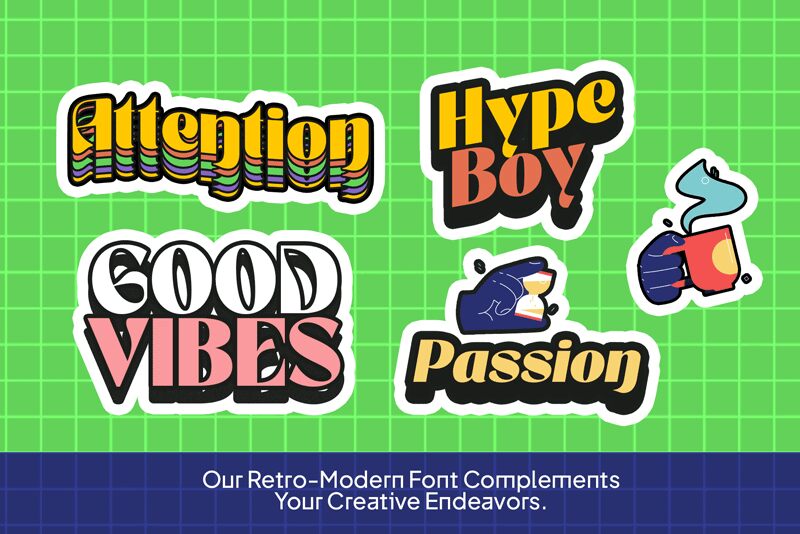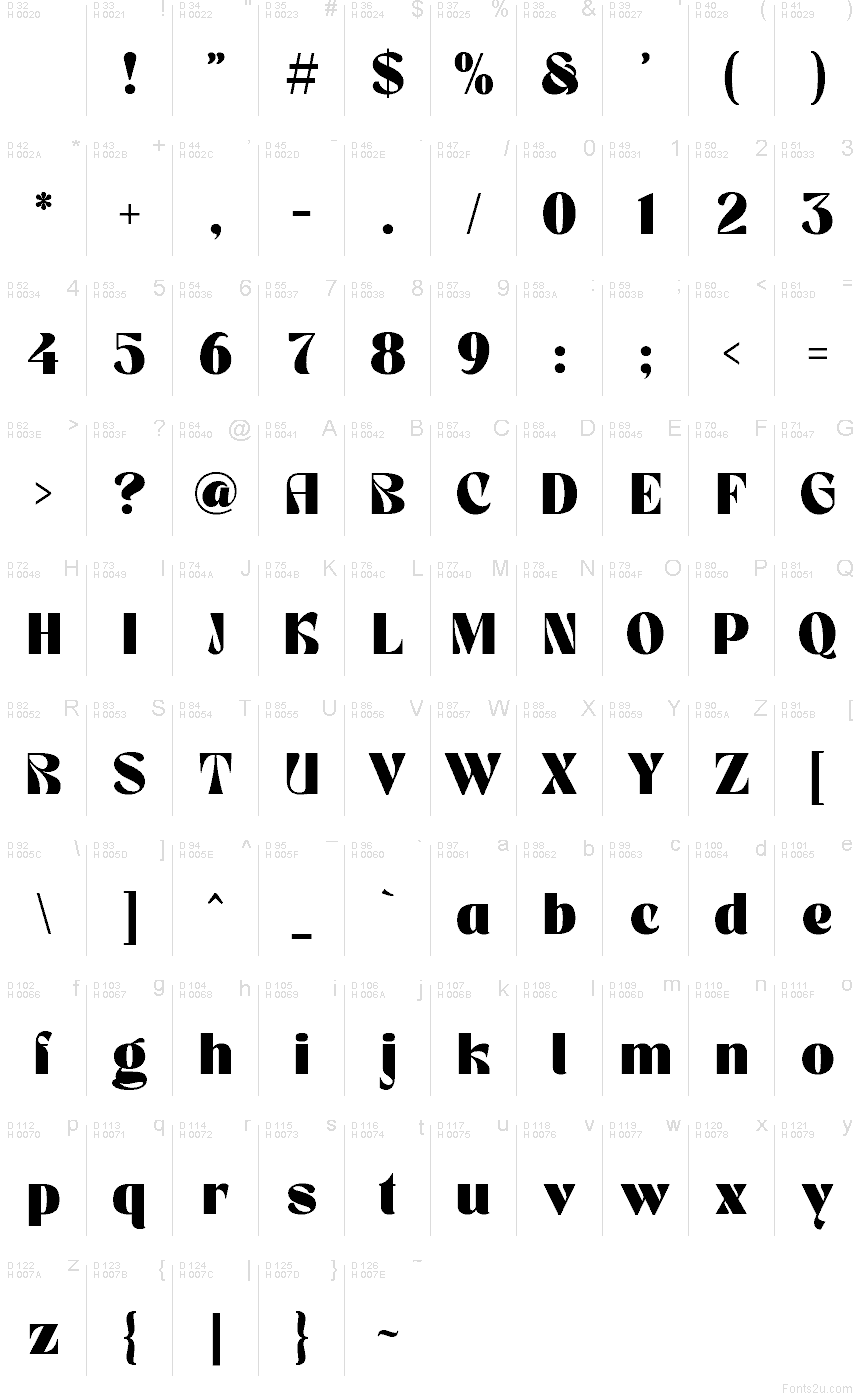
Monograph Regular
Monograph font by VampStudio is a free retro serif typeface with a bold, inky presence that feels straight off a vintage book jacket. Thick vertical strokes and tight curves give each letter a solid, poster-like weight, while the rounded, teardrop shapes add a lush, almost calligraphic flair. It has that satisfying mix of old-world charm and sharp modern polish, so even a single word set large immediately looks like a logo.
Using Monograph, headlines and titles snap into focus—this free font shines on editorial covers, boutique branding, posters, packaging, and social campaign graphics where you want a strong, theatrical voice. The rhythm between its heavy strokes and smooth inner curves keeps dense words readable while still dramatic. Try pairing Monograph with a clean geometric sans for small text, and let Monograph stay big and bold for maximum impact.